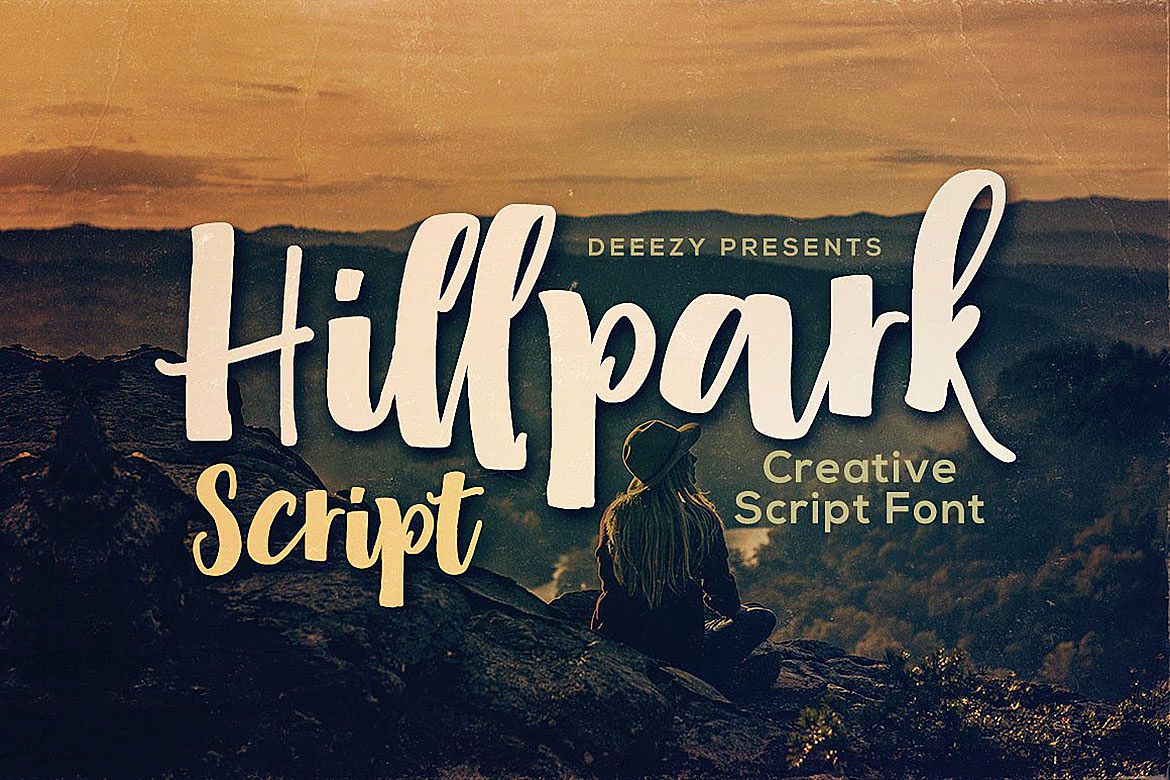
Hillpark Script Font
Bold and handwritten style script font for your new projects. With multi language support and lot of stylistic alternates & swashes. Enjoy ;)